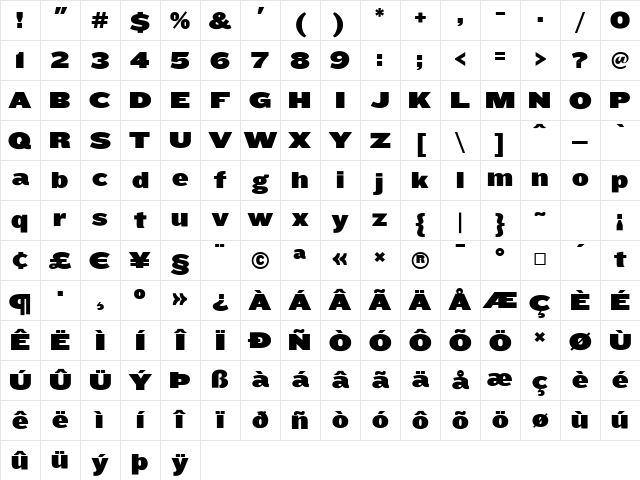
Knockout Medium Free Font
Knockout Medium
Style: Medium
Design Context for Knockout
Knockout is a composed and adaptable typeface that performs quietly and consistently across a wide range of design contexts.
Pro Tip: Use Knockout in both headline and body roles to test its range before committing to a single application.